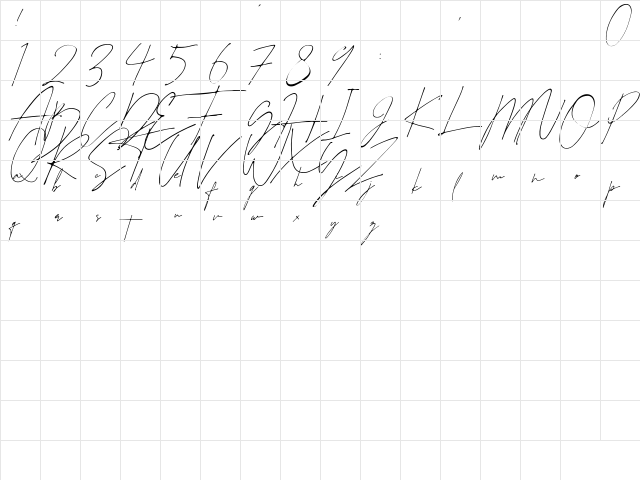
Juliette Regular
| Foundry | Bluetype |
| Designer | Ferry Ardana Putra + Bluetype |
Design Context for Juliette Typeface
Juliette is a composed and adaptable typeface that performs quietly and consistently across a wide range of design contexts.